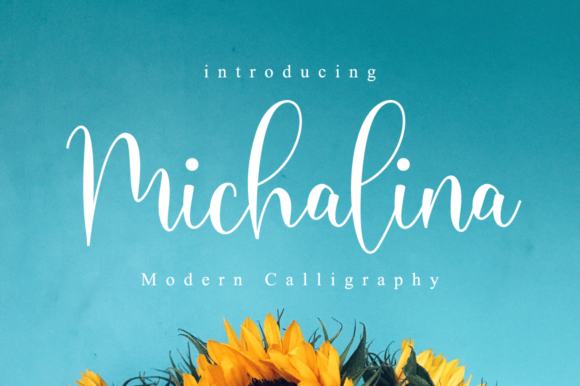
Dive into the world of Michalina Script, a captivating script font that exudes a playful and carefree spirit, reminiscent of a relaxed summer breeze. Its unique charm and effortless flow will instantly elevate your designs to new heights, making them stand out from the ordinary. Created by the talented NissaStudio, this font family is a true masterpiece that will ignite your creativity and transform your projects into visual spectacles.
Unleash the power of Michalina Script and let your imagination run wild. With its playful and relaxed vibe, this font is perfect for adding a touch of whimsy and personality to your designs. Whether you're creating eye-catching logos, stunning invitations, or captivating social media posts, Michalina Script will bring a smile to the faces of your audience and leave a lasting impression.
Indulge in the unique charm of Michalina Script and embrace its ability to turn ordinary designs into extraordinary works of art. Let its flowing lines and cheerful character infuse your projects with a sense of optimism and joy. From greeting cards that warm hearts to website designs that capture attention, Michalina Script is the perfect tool to make your creations shine.
Step into the world of Michalina Script and discover endless possibilities for creative expression. With its versatility and effortless charm, this font is a must-have for designers looking to make a statement. Its ability to blend seamlessly with other design elements makes it the perfect choice for creating harmonious and impactful compositions.